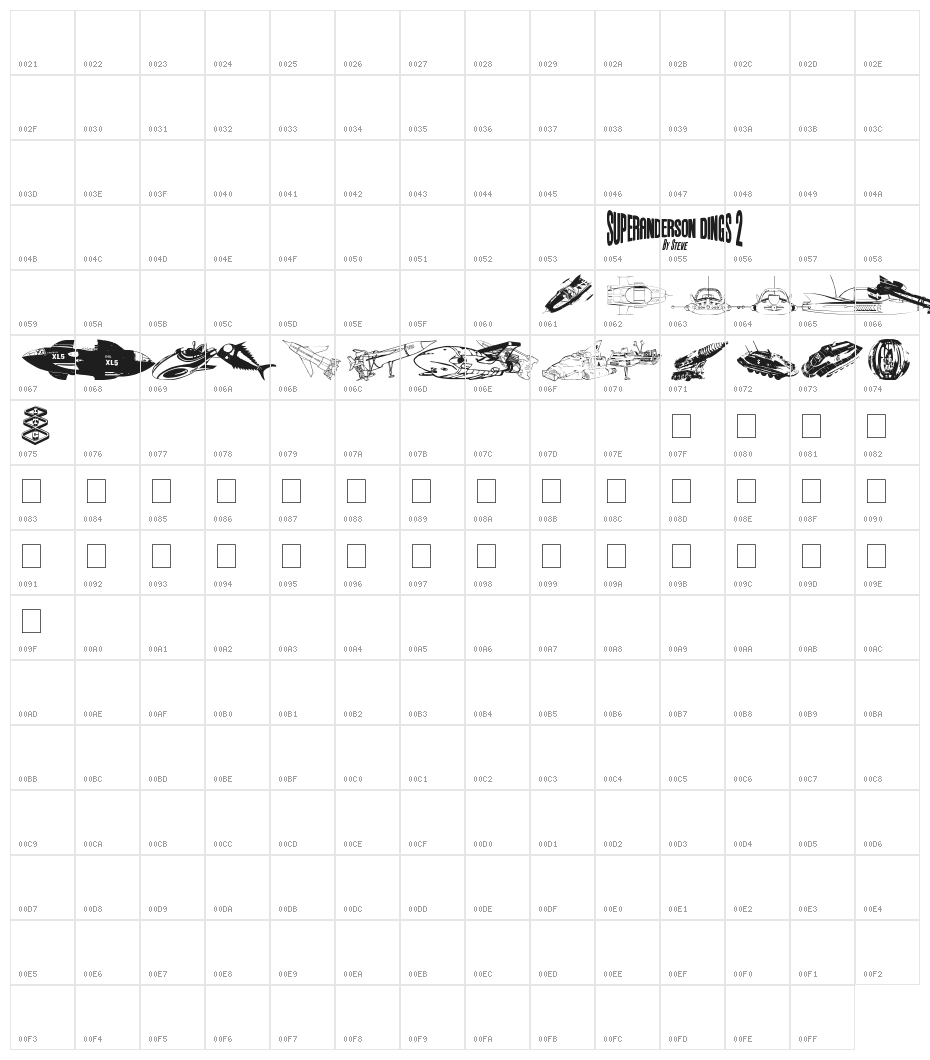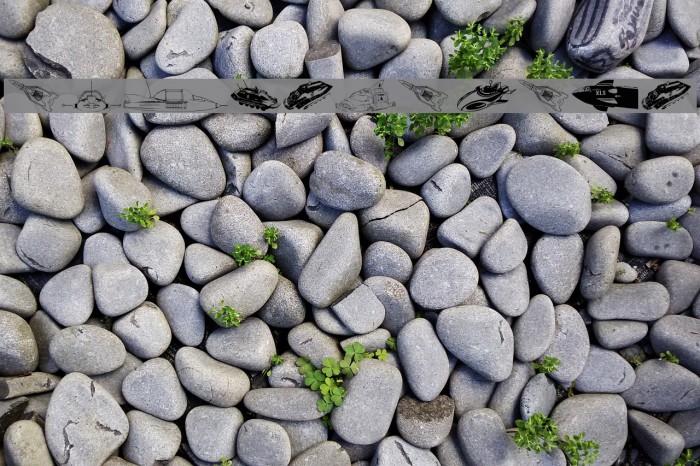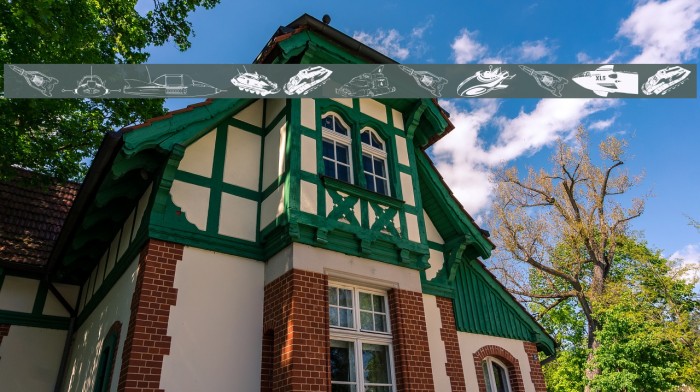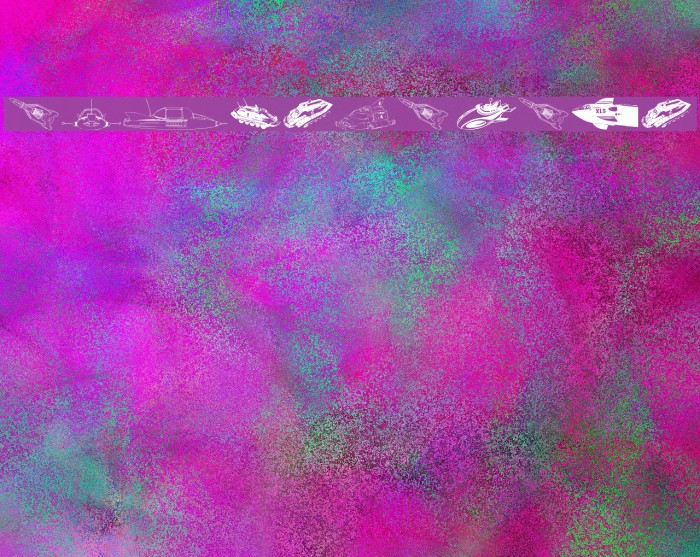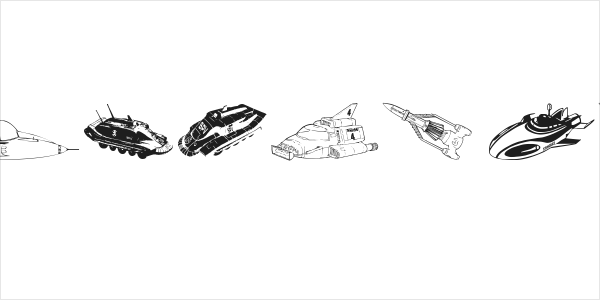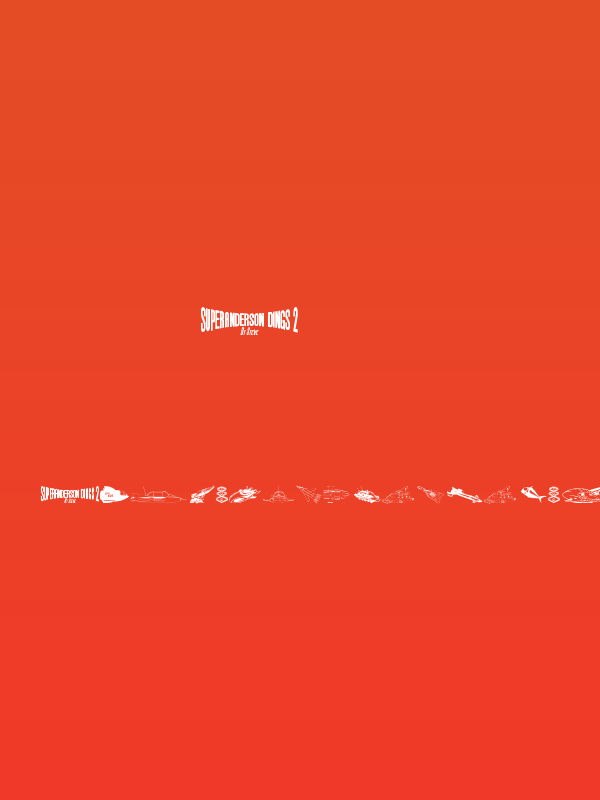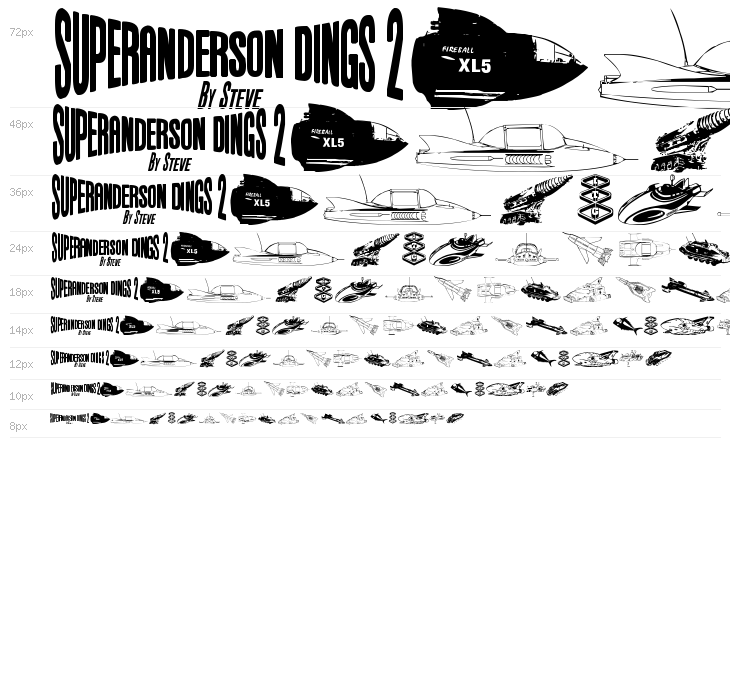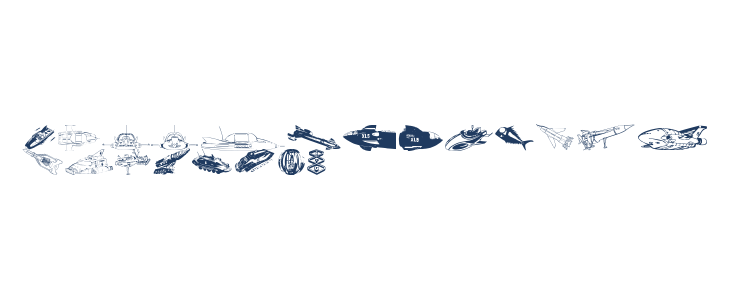
Anderson Dings 2 Font
Anderson Dings 2 Description
A novelty dingbat font featuring detailed illustrations of futuristic vehicles and objects, paired with a bold, condensed sans-serif display style for the title. The glyphs are primarily pictorial rather than alphanumeric, making it suitable for decorative or thematic use.
| Overall Style | Decorative, Sci-Fi, Novelty |
| Use Case | Decorative elements, Themed graphics, Posters |
| Proposed Projects | Themed posters, sci-fi event flyers, comic books, decorative headings, novelty designs. |